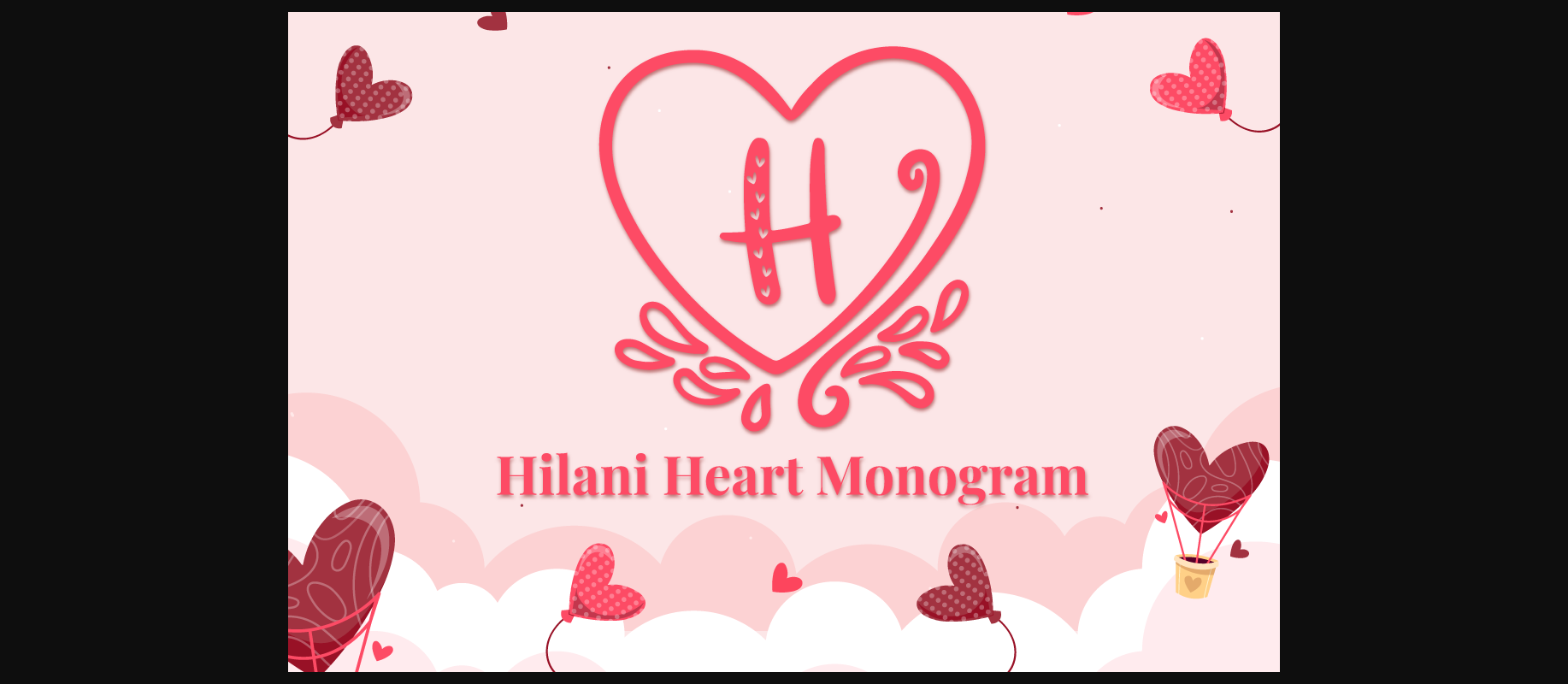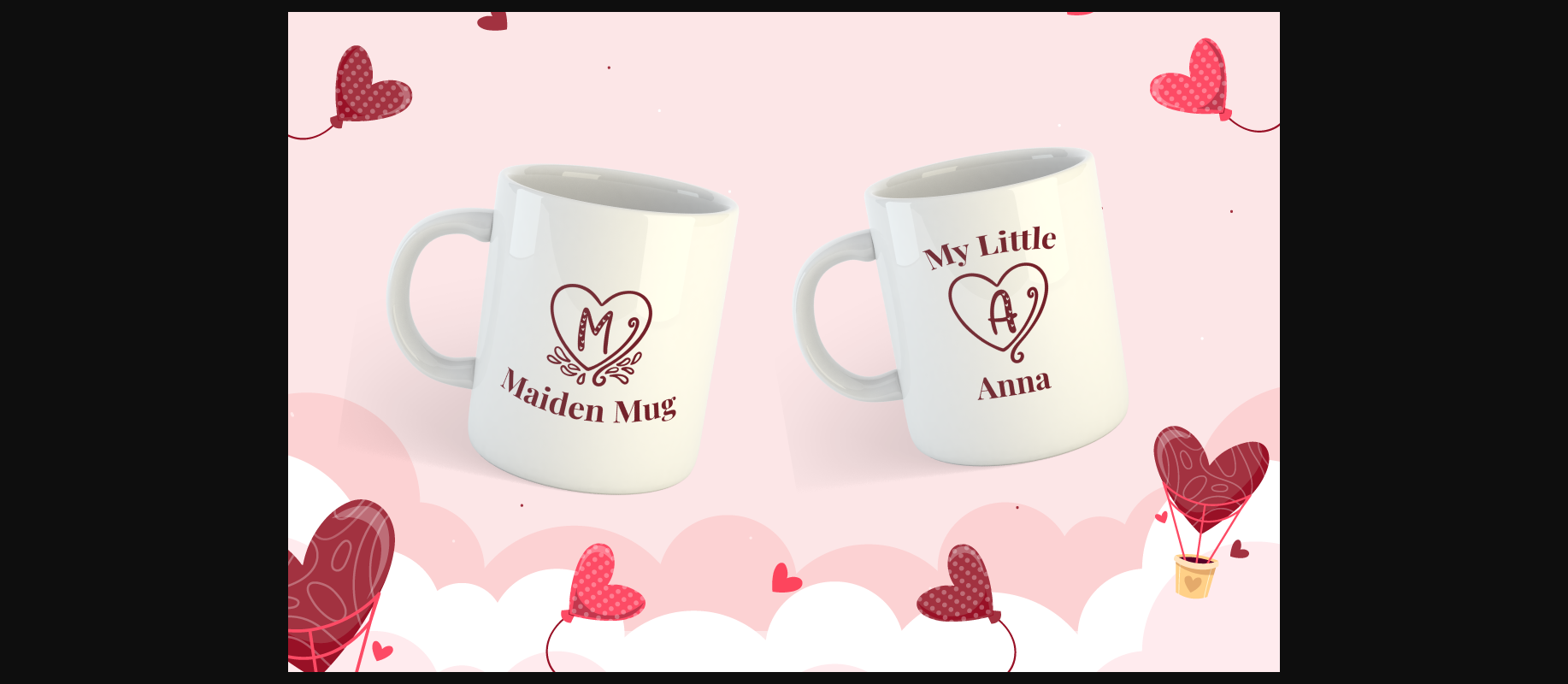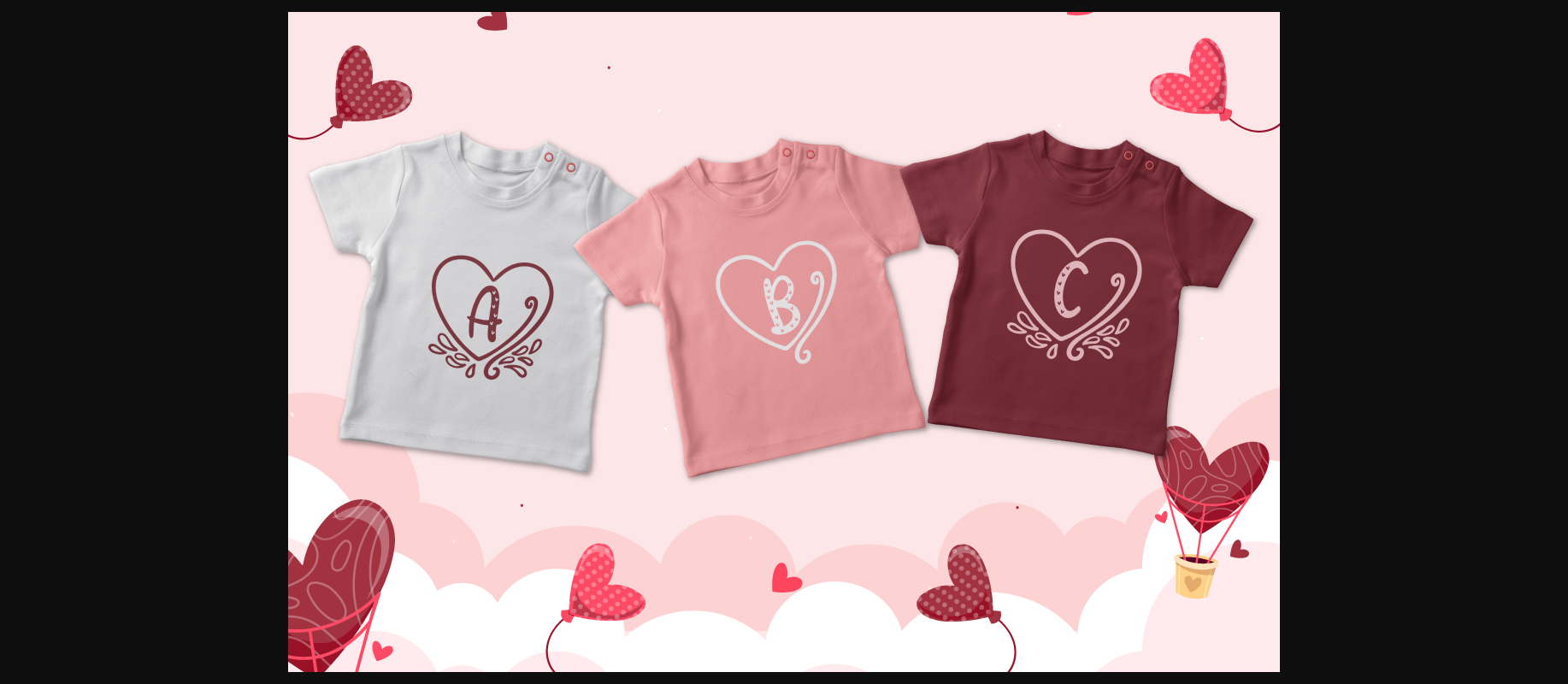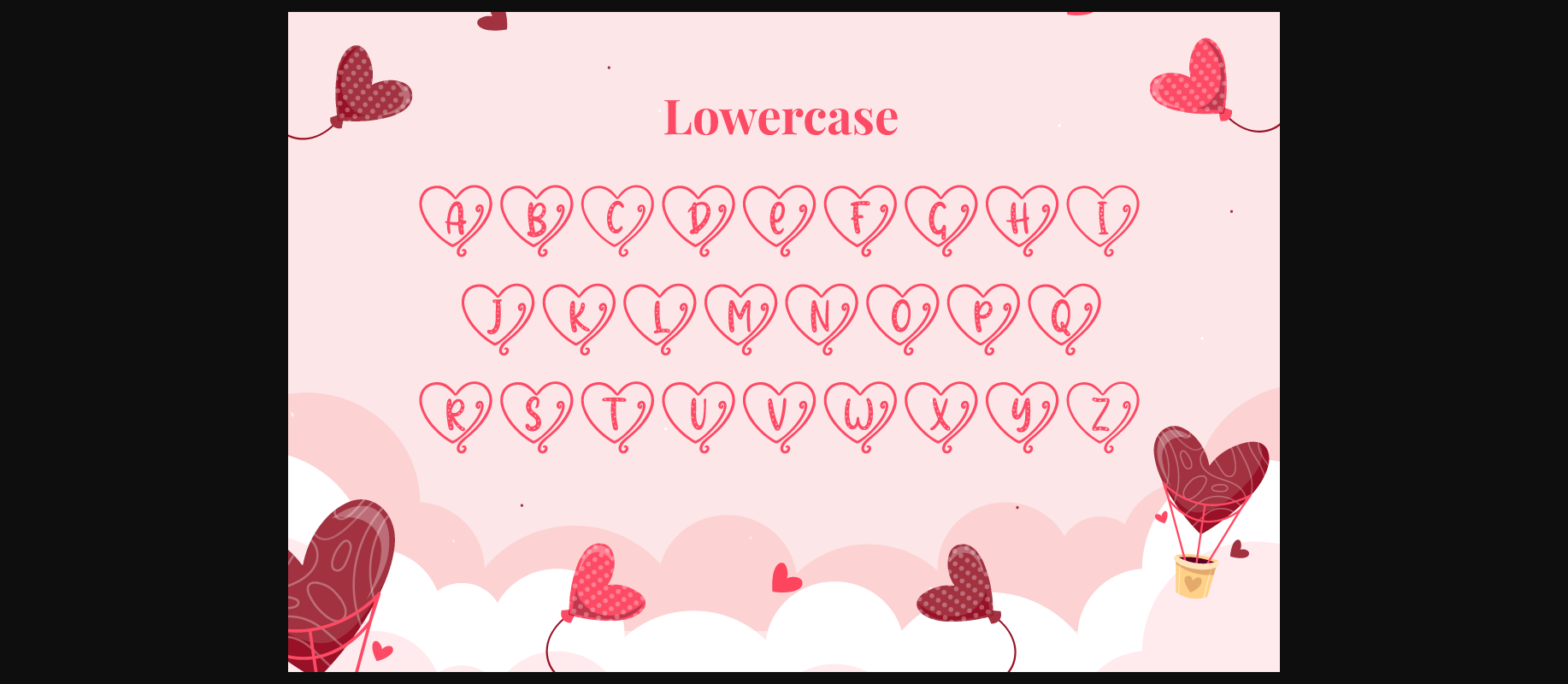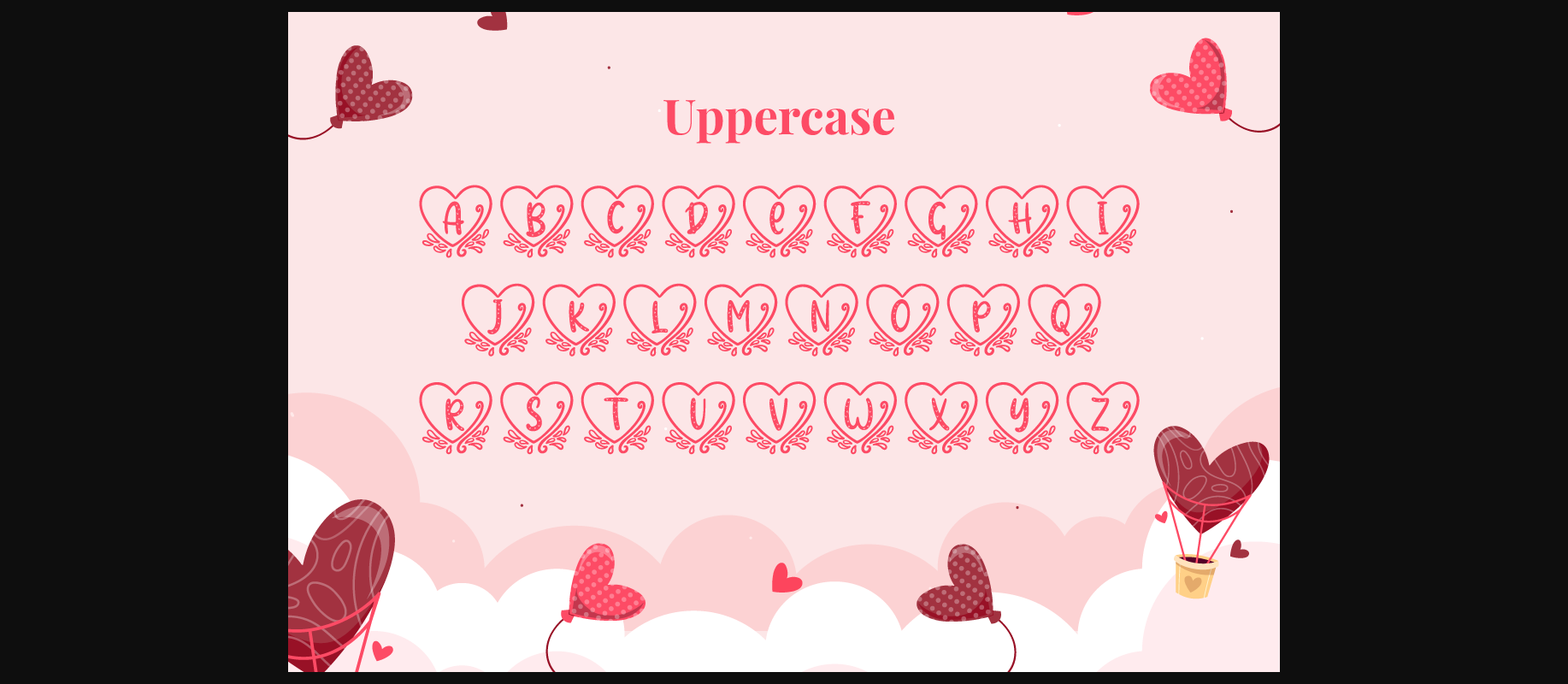
Hilani Heart Monogram Font
About Hilani Heart Monogram Font
Hilani Heart Monogram is a Valentine-themed decorative font. Fall in love with its authentic style, and use it for your special occasions, business designs, logos, branding, social media posts, and wedding cards.
Simply change between uppercase and lowercase to see the different styles!